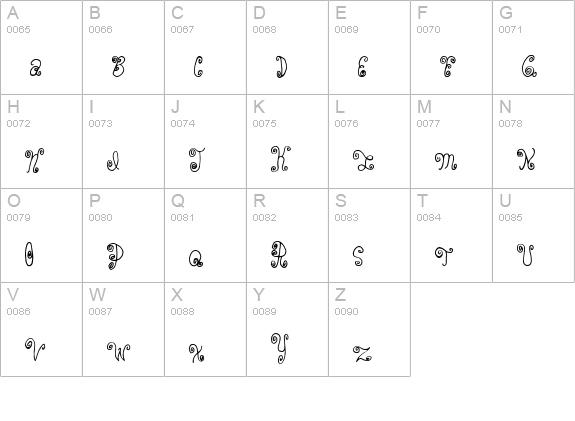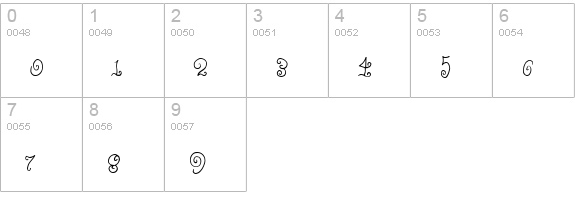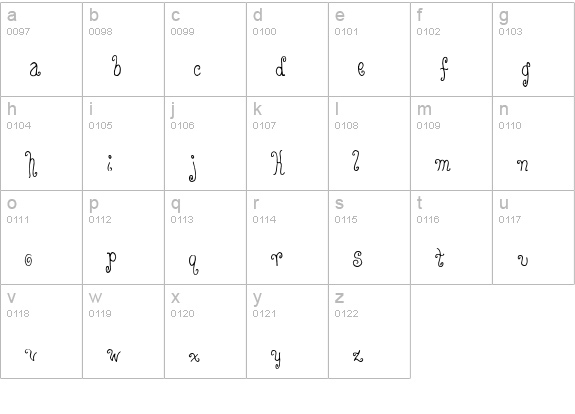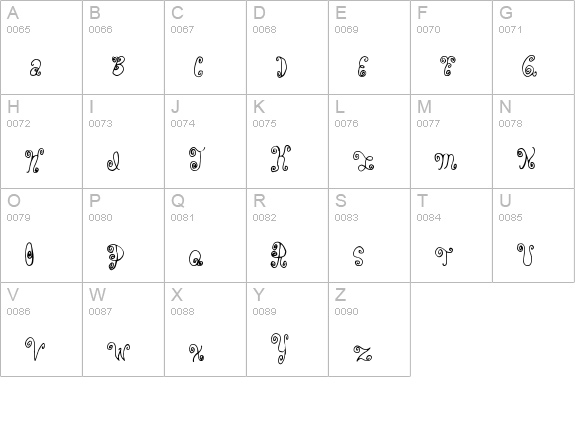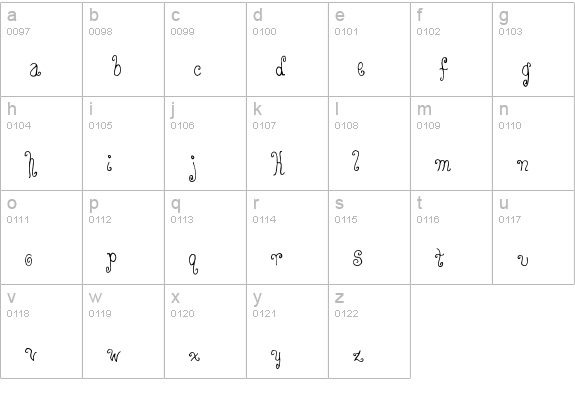
Yarn Sale Font Details
Introducing Yarn Sale font, a charming and whimsical typeface that is perfect for adding a touch of playfulness to your projects. This delightful font features a unique handwritten style with elegant curves and flowing lines, making it ideal for a variety of design applications. Yarn Sale font is freely available to download at FontsMarket.com, making it easy for you to add this versatile typeface to your collection. Whether you're working on a crafting blog, a children's book, or a special event invitation, Yarn Sale font will bring a sense of warmth and creativity to your design. With its friendly and inviting appearance, Yarn Sale font is sure to capture the attention of your audience and leave a lasting impression. So why wait? Download Yarn Sale font today and start adding a touch of whimsy to your projects!